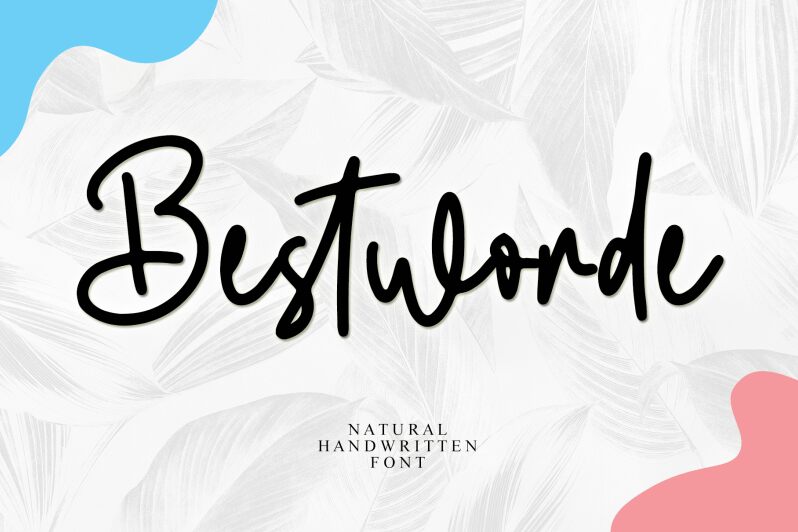
Bestworde - Personal Use
Bestworde by Letterafa Studio is a charming handwritten font that exudes a playful and whimsical vibe. Its semi-light weight gives it a delicate touch, perfect for adding a personal and inviting feel to your design projects. Whether you're creating wedding invitations, greeting cards, or branding materials for a boutique business, Bestworde will add an element of elegance and uniqueness. Its casual yet refined style makes it suitable for various applications, from social media graphics to product packaging. With Bestworde, you can make your words stand out and leave a lasting impression on your audience.